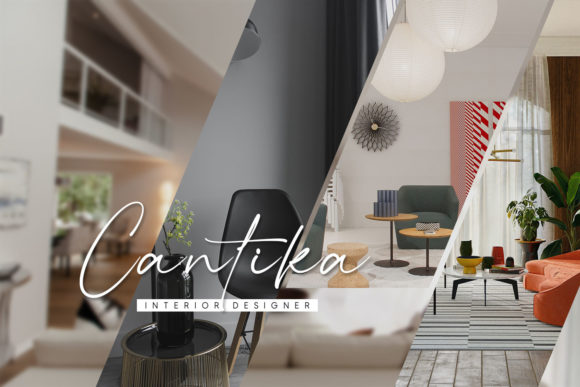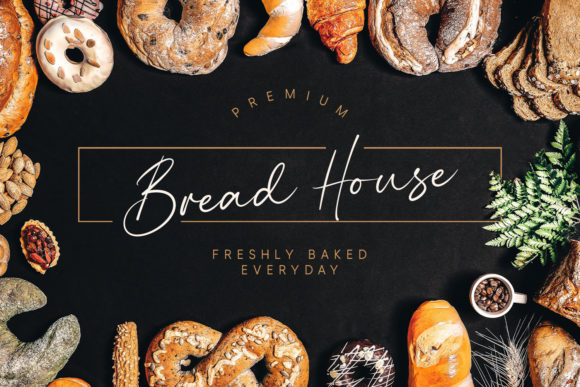
Fife Gallery Font
db-ku.com - Script & Handwritten -- Fife Gallery is a stylish and delicate script font. It has a clean, thin and smooth vibe and it will be a hit for any design that you want to add it to. This font is PUA encoded which means you can access all of the glyphs and swashes with ease!